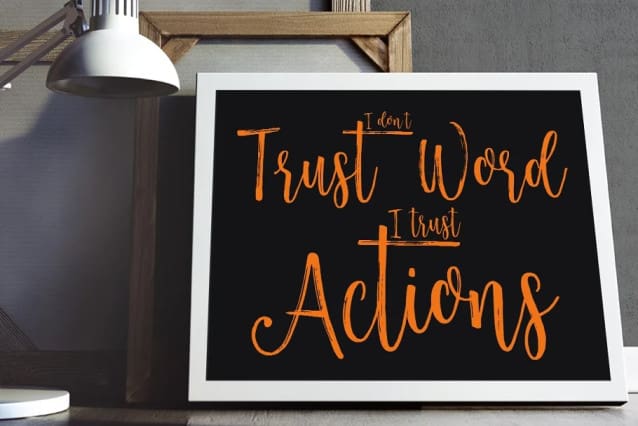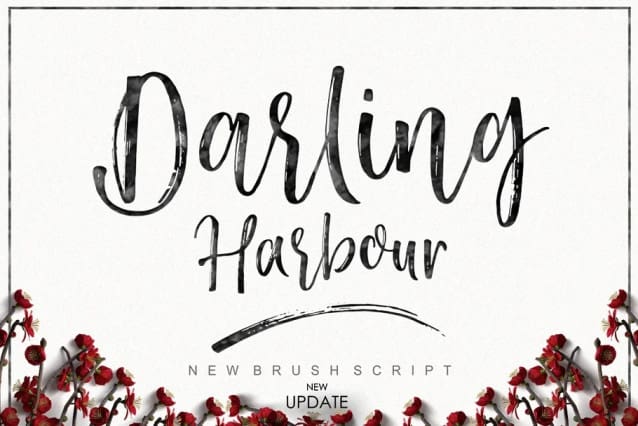
Darling Harbour Font
Darling Harbour Font – New font brushed very interesting, also provided some ligatures and swashes extra. Also with additional DarlingHarbour Brush Slant, a font slant harmony to be combined with Darling Harbour Brush. Perfect for projects brands, logos, product packaging, posters, invitations, greeting cards, news, blogs, everything including personal charm etc.
Darling Harbour Brush features Open type feature, including initial and terminal letters,ligatures and International support for most Western Languages is included.